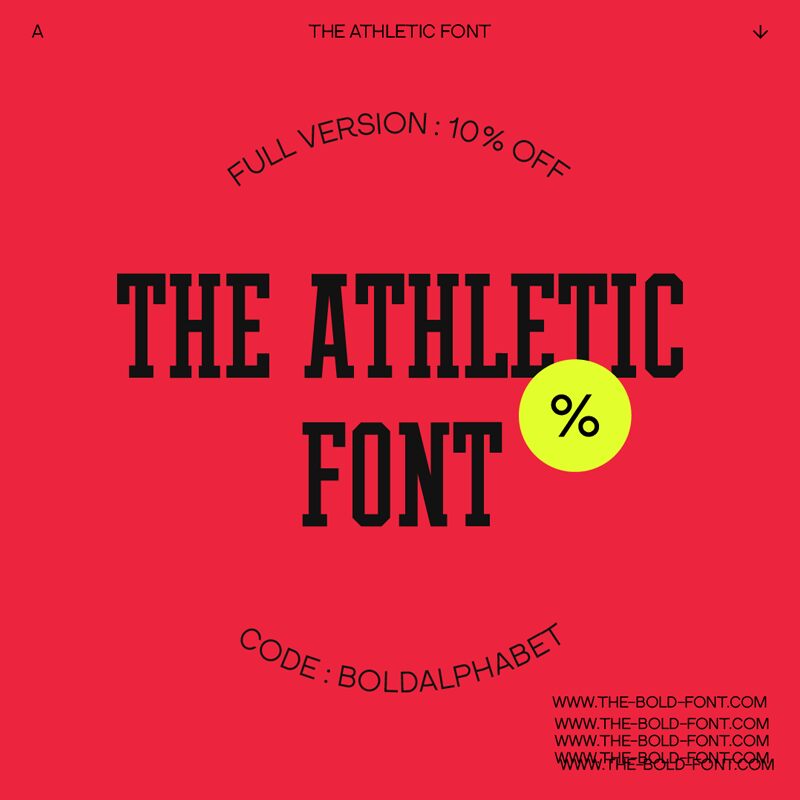
The Athletic font from Sven Pels is a condensed display typeface with an old-school style. The blocky geometric letters give the font its vintage, collegiate look that suits it for attention-grabbing displays. The structured formed and authoritative letter presence add dynamics to this geometric script which are enhanced with the additional stylistic alternates.
Use this free display font for logos, branding designs, website headers, apparel designs, sports-themed posters and event invitations. It will be equally good for typography artwork on skateboards, social media posts, magazine covers, beverage packaging (energy drinks) large-scale banner advertisements etc.